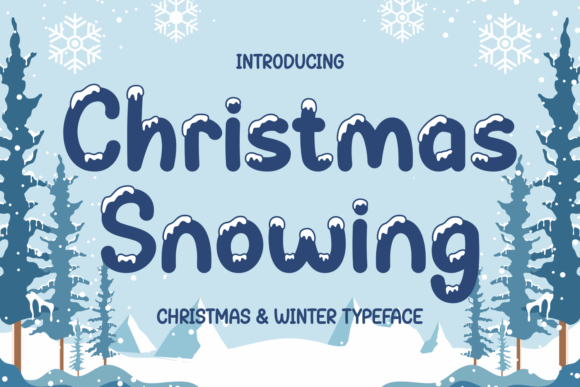
Introducing Christmas Snowing Font, a delightful decorative font created by Rydmaker (7NTypes). Get ready to infuse your designs with the enchanting winter vibes that this font brings. Whether you're working on festive holiday projects or simply want to add a touch of coziness to your designs, Christmas Snowing Font is the perfect choice.
This captivating font is more than just a decorative element; it's a powerful tool that will elevate your creations to new heights. With its charming and adorable style, Christmas Snowing Font will instantly captivate your audience, making your designs stand out from the crowd.
But what sets this font apart from the rest? Its versatility! Christmas Snowing Font is incredibly versatile, making it suitable for a wide range of projects. From holiday greeting cards to winter-themed logos, this font will add a unique and personalized touch to any design.
One of the key features of Christmas Snowing Font is its ability to evoke emotions. With each stroke, it exudes warmth, joy, and a sense of nostalgia. Imagine the smiles it will bring to your audience's faces as they connect with the festive spirit and memories of cozy winter nights.
Not only does Christmas Snowing Font possess a captivating aesthetic, but it also boasts functionality. It's the best font for handwriting PDF files, ensuring that your text is legible and visually appealing. Say goodbye to dull and generic fonts; Christmas Snowing Font brings character and personality to every word.